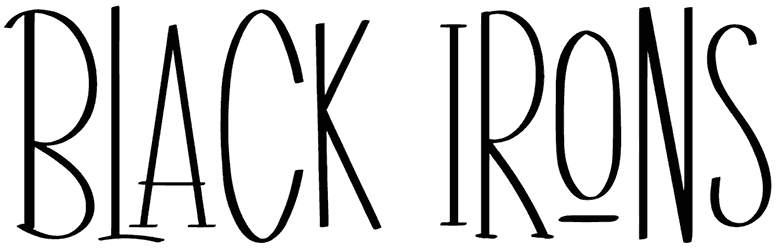
Black Irons Font
Designed byErik5541
If you have been looking for a semi-official font for your projects for a long time, we suggest you take a look at the Black Irons font. This doodle font was first designed for use in school projects.
But gradually it opened its place in different designs and was able to become a versatile quote font. As a result, even without having lowercase letters, it can solve all your needs in logo design, sports, social posters, and branding.